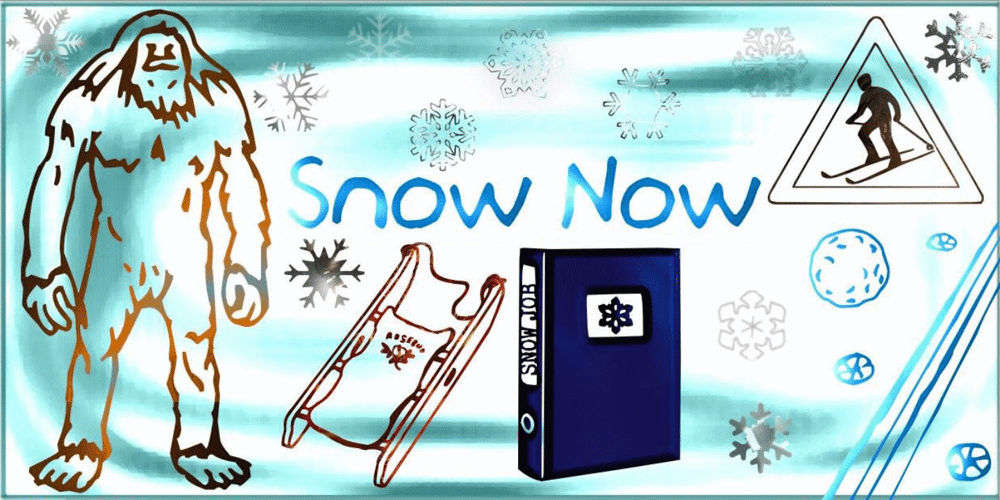
Snow Now
Snow Now font
Snow Now Font Family was designed by Heikki Morgan Hämäläinen and published by Morganismi. Snow Now contains 3 styles and family package options. Snow Now is a frisky, frosty, and snowy font family for active winter use. It includes two text fonts plus great pictures of snowflakes, tools, sculpture, animals and more.